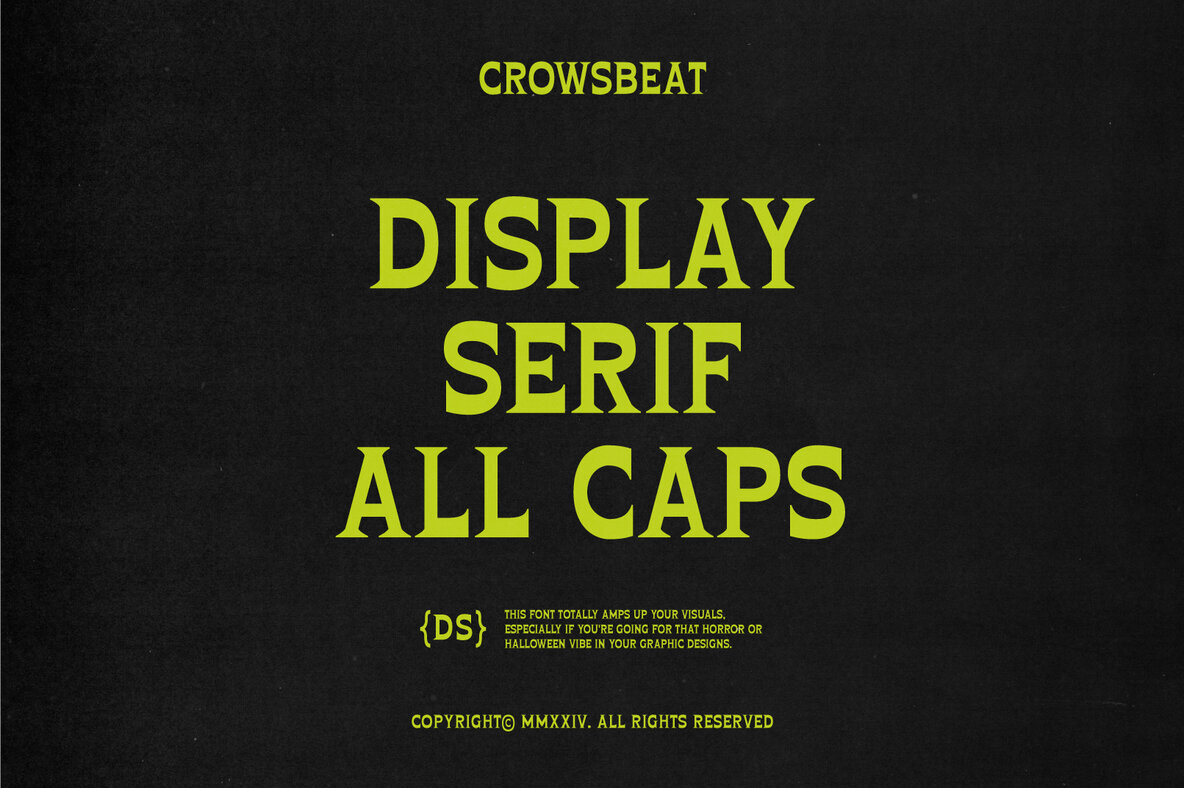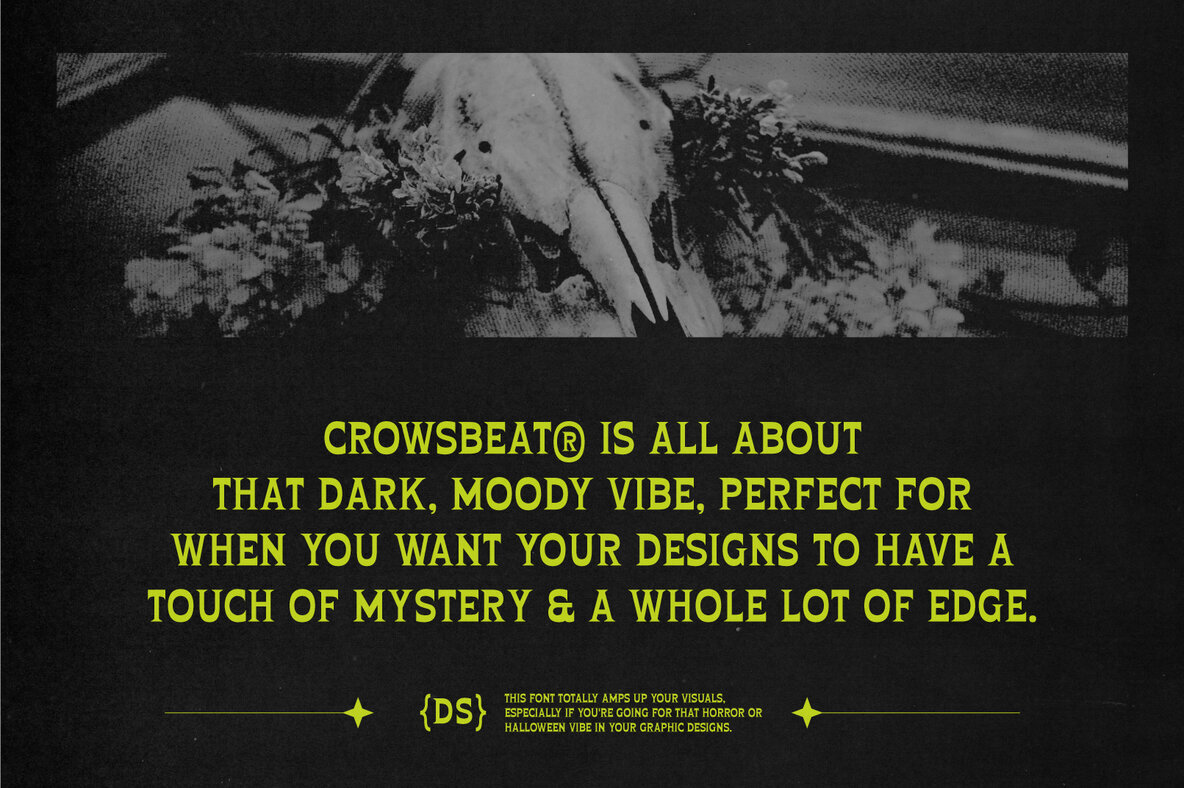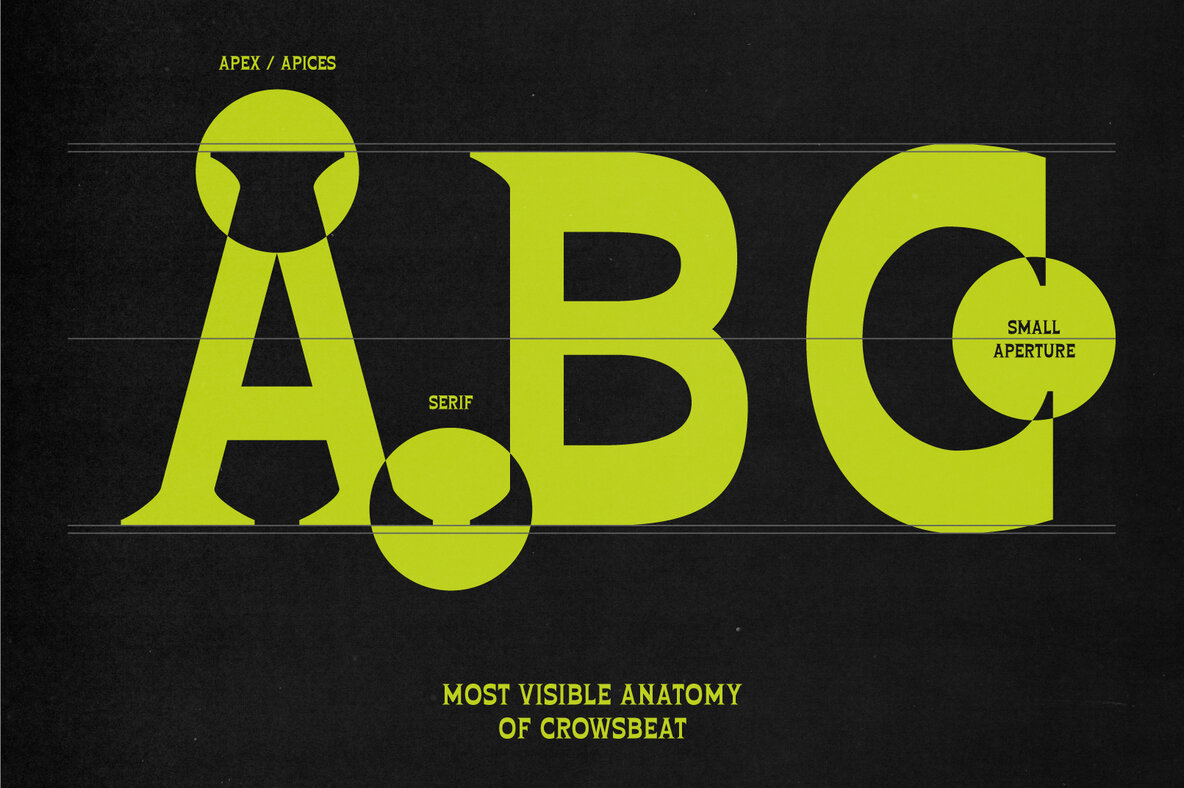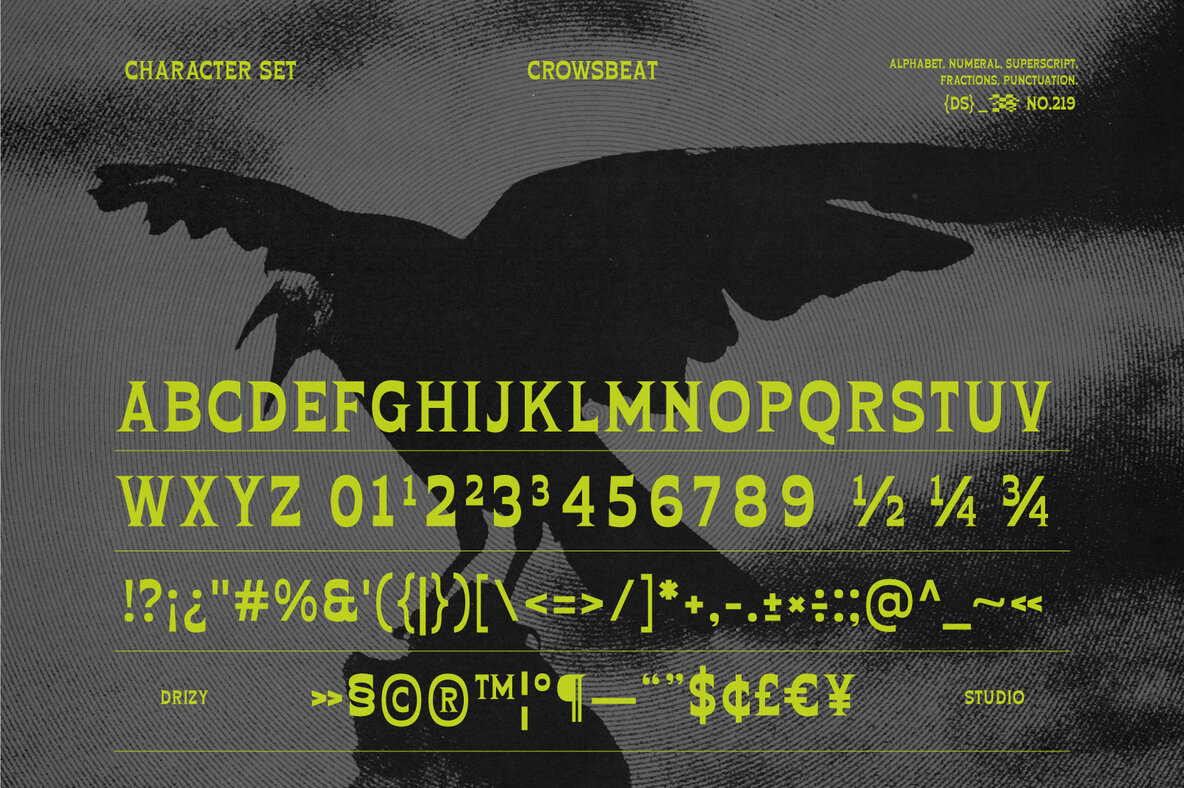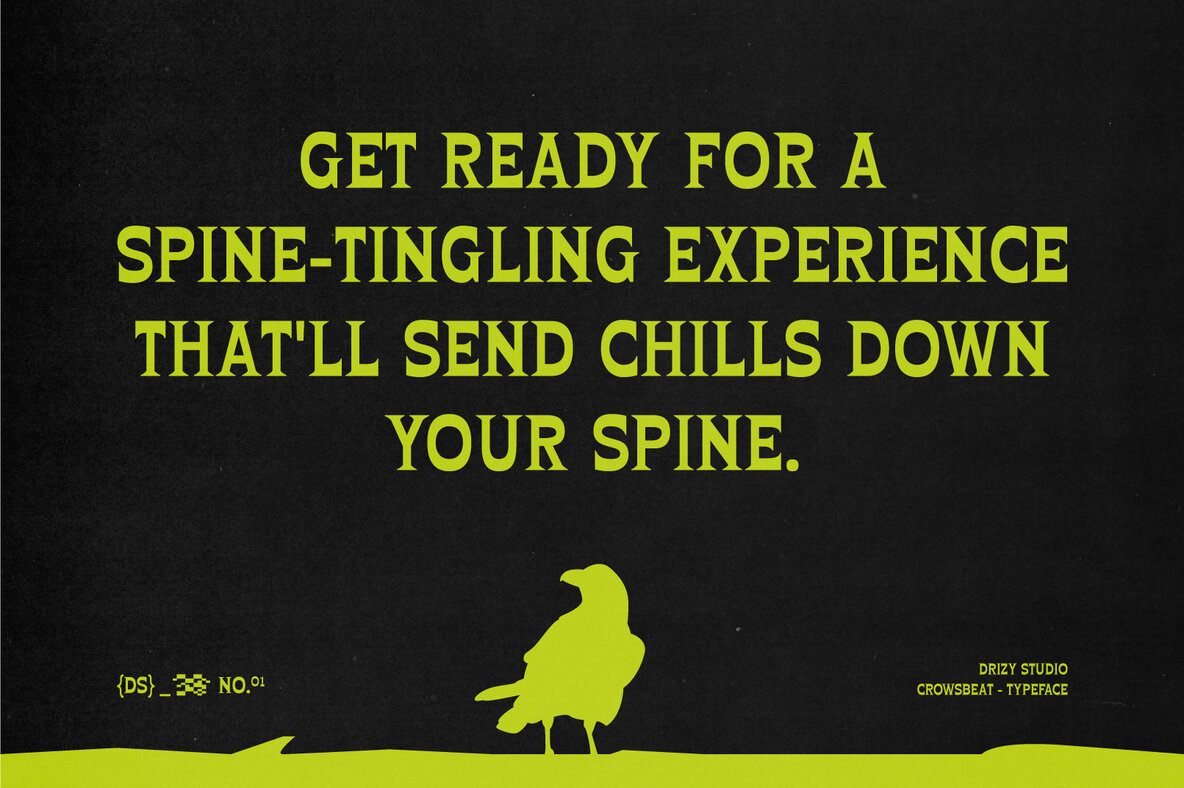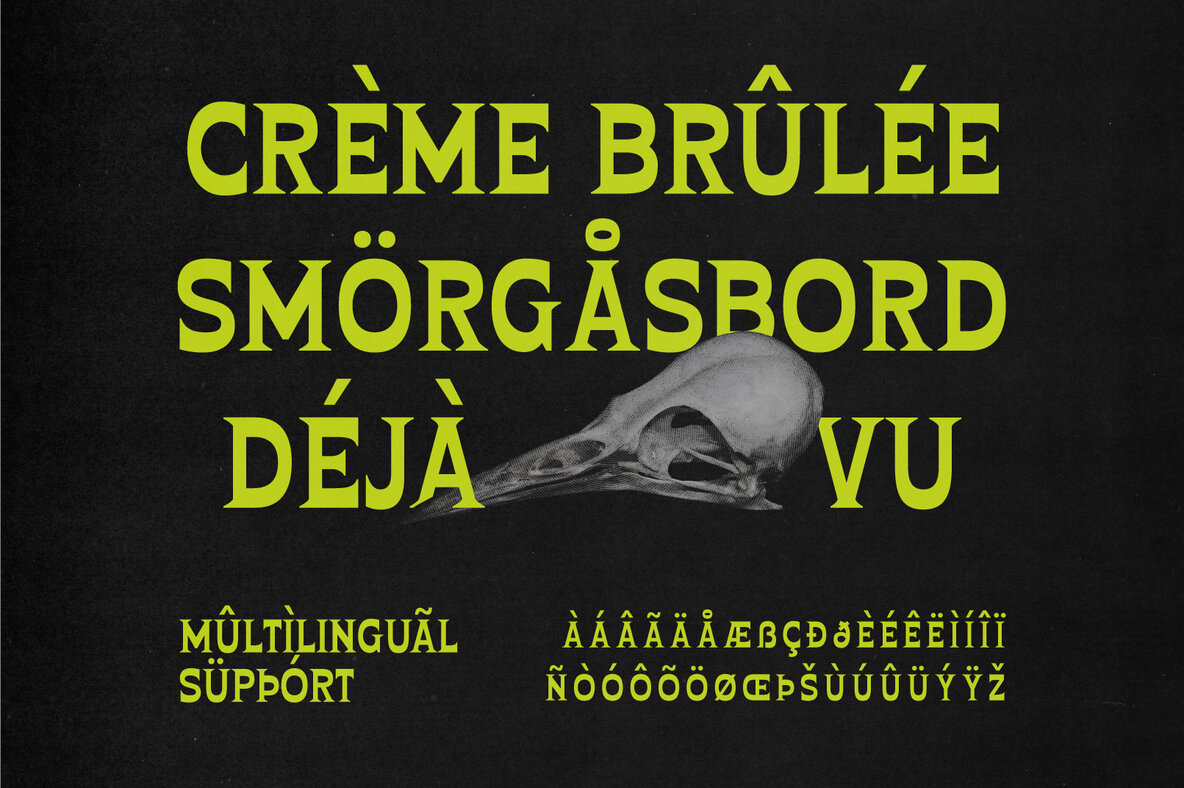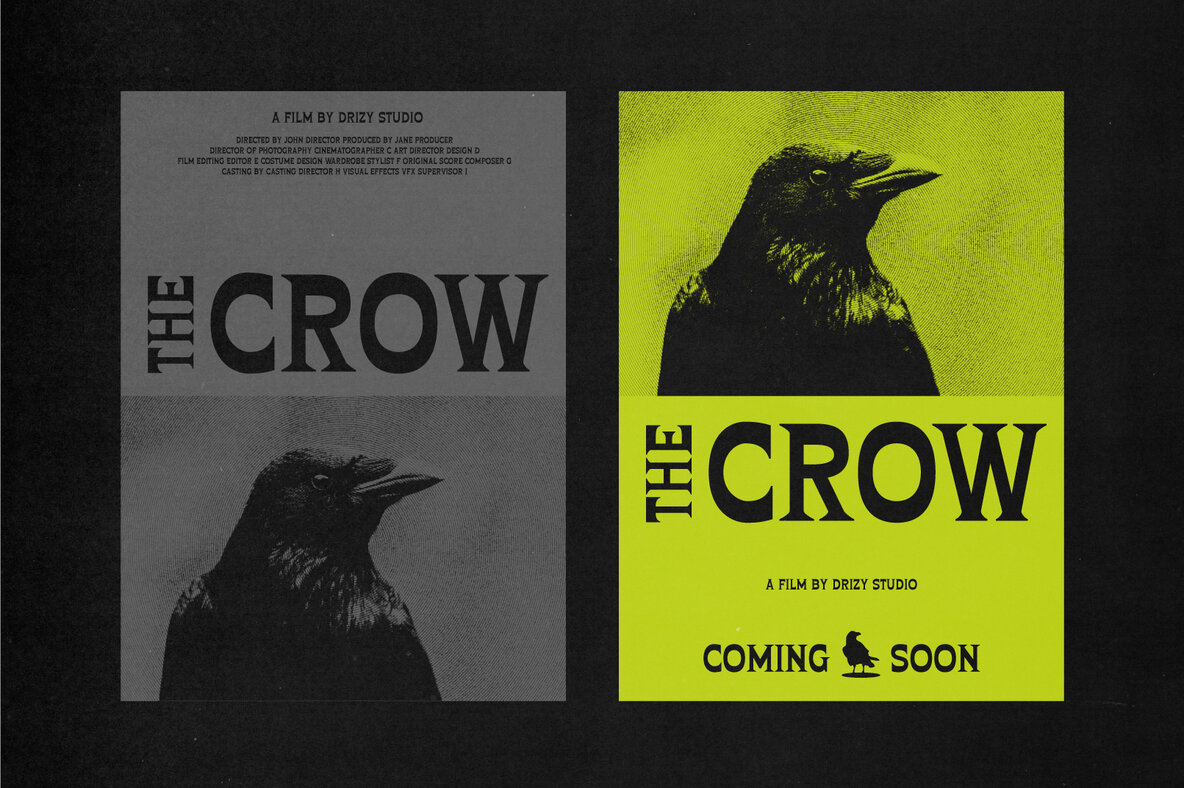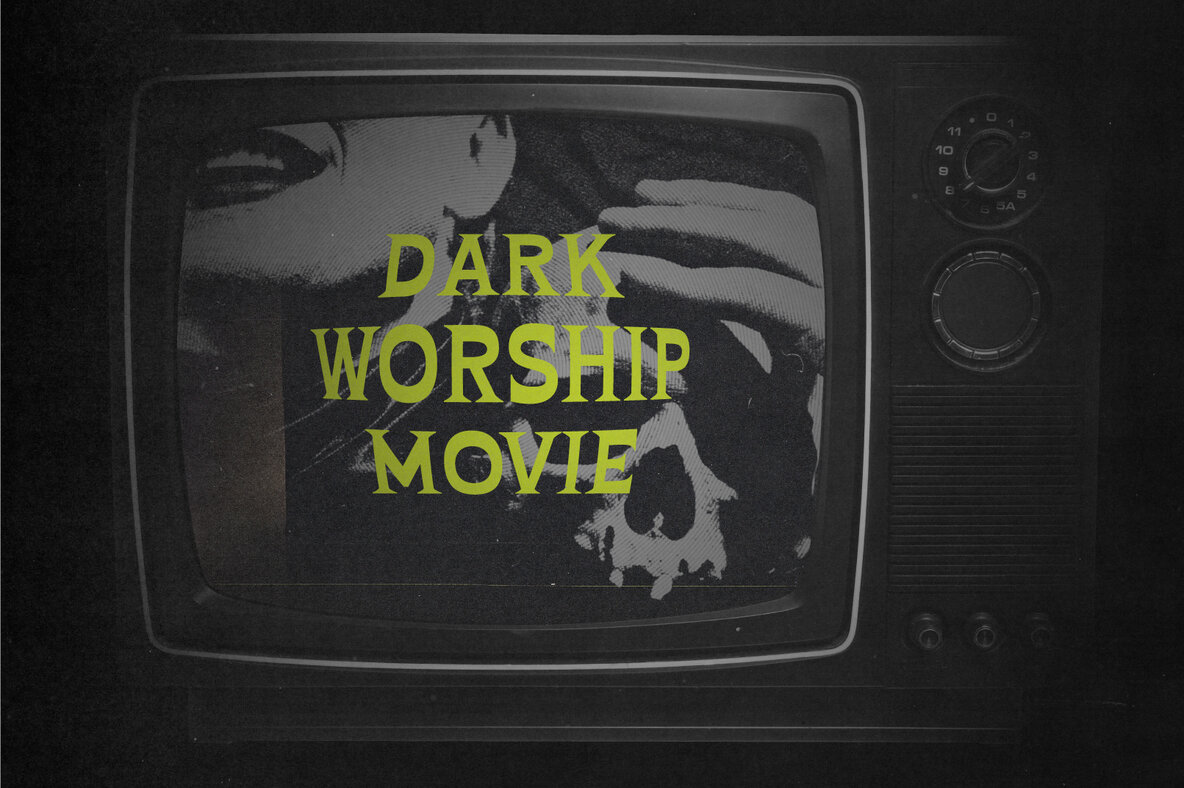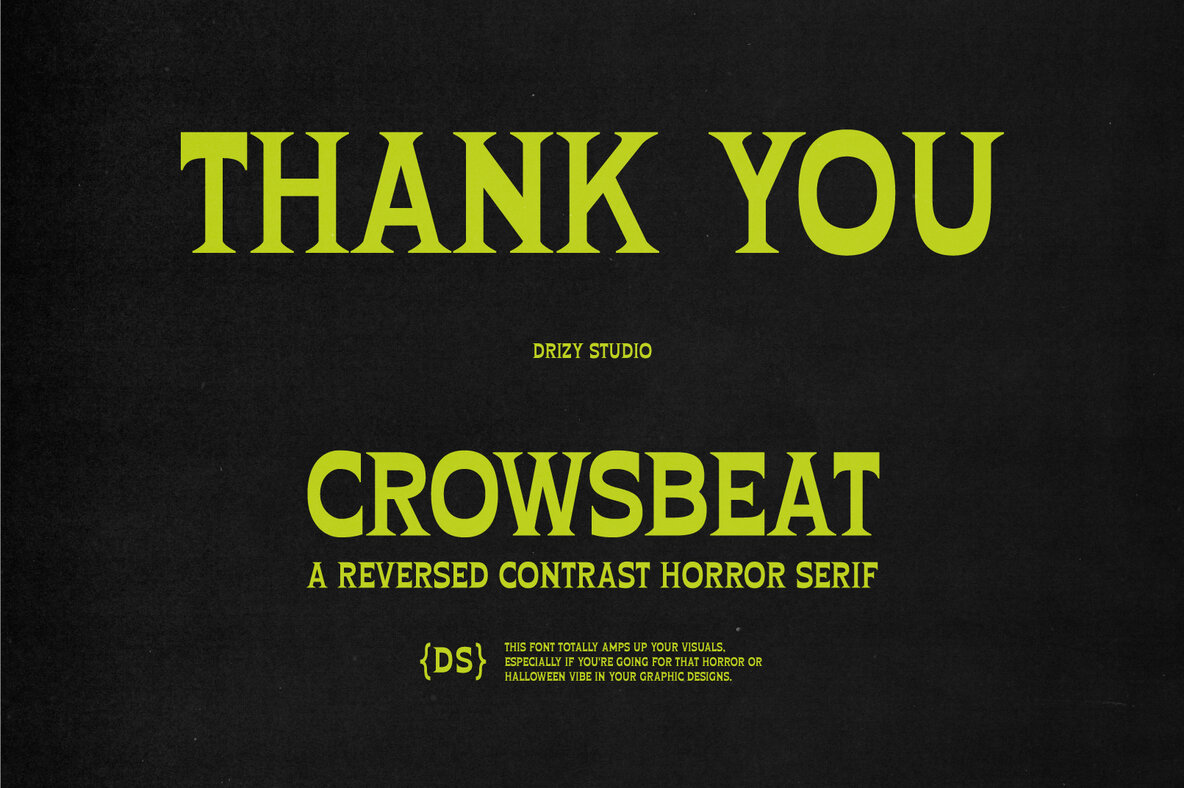
Crowsbeat Font
Crowsbeat Regular
Crowsbeat is a spine-chilling typeface that captures the eerie essence of Halloween. Its unique reversed contrast design subverts traditional typography norms, creating a strikingly unsettling effect. Perfect for horror-themed projects, this font adds an element of dread and suspense to your designs, ensuring they leave a haunting impression.
Ideal for posters, invitations, and any project that calls for a dark, atmospheric touch, Crowsbeat's features include an all-caps character set, punctuation, numbers, and multilingual support. Let this font guide your creativity into the nightmarish unknown, delivering a spine-tingling experience for your audience.